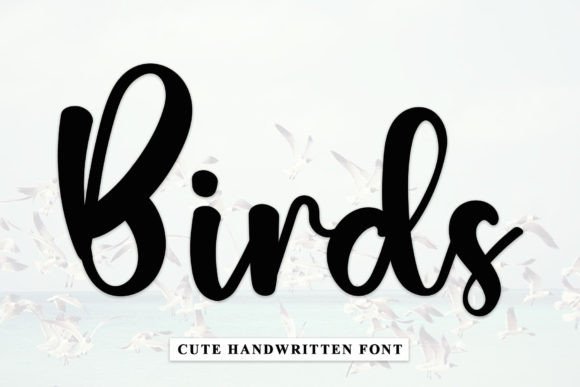
The Perfect Font for Your Next Masterpiece
Have you ever been working on a project, and suddenly a spark of inspiration hits you? Maybe it’s the perfect combination of colors, or perhaps it’s the discovery of a unique font that brings your design to life. For many designers, that moment of epiphany often comes when they stumble upon a font that perfectly captures the essence of their creative vision.
That’s exactly what you’ll experience with the Birds Font. This beautiful handwritten font is designed to add an elegant touch to your favorite projects. With its distinct and timeless style, you’ll be able to create spectacular designs that leave a lasting impression. Whether you’re a seasoned designer or just starting out, the Birds Font is a valuable addition to your toolkit, offering endless possibilities for creativity and self-expression.
Birds Font Key Features
- Unique Character Set: Birds Font features a unique set of bird-inspired characters, including ornithological symbols and glyphs, making it a great choice for designers who want to add a touch of whimsy to their work.
- Font Weight and Style: Birds Font comes in a range of weights, from light to bold, and features a distinctive, hand-drawn style that adds a touch of personality to any design.
Birds Font Review
Overall, I think the Birds Font has some interesting qualities that make it unique, but it also has some limitations that might hold it back from being a top choice for designers.
- ✨ Unique and playful feel: The Birds Font has a quirky, whimsical vibe that can add a lot of personality to a design. It’s perfect for projects that need a bit of flair and creativity.
- ✨ Good legibility: Despite its playful feel, the Birds Font is still relatively easy to read, even at smaller font sizes.
- ⚠️ Limited versatility: The Birds Font is a bit too ornate to be used for body text or long blocks of copy. It’s best suited for titles, headings, and other short pieces of text.
- ⚠️ May not be suitable for formal projects: The Birds Font is a bit too playful to be used for formal projects, such as business reports or academic papers.
I would recommend the Birds Font for designers who are looking for a unique and playful font to add some personality to their projects. However, it may not be the best choice for designers who need a more versatile or formal font.
For a more natural look, pair the Birds Font with a watercolor or hand-drawn design element.
For a more realistic look, use the Birds Font in conjunction with a brush or texture layer.
For a more whimsical look, pair the Birds Font with a background image or texture.
The Birds Font is ideal for:
– Children’s book illustrations
– Nature-inspired designs
– Whimsical branding and marketing materials
– Educational materials and presentations